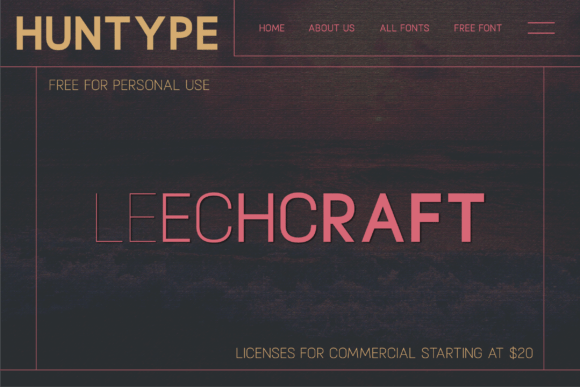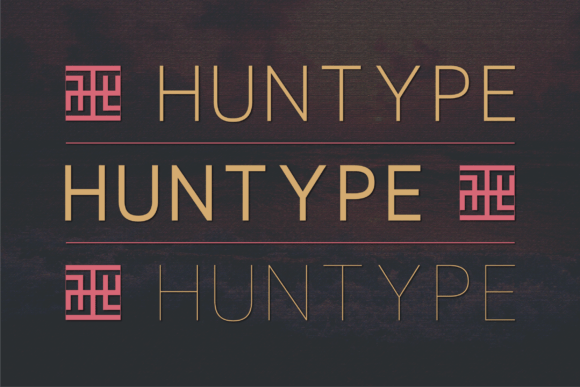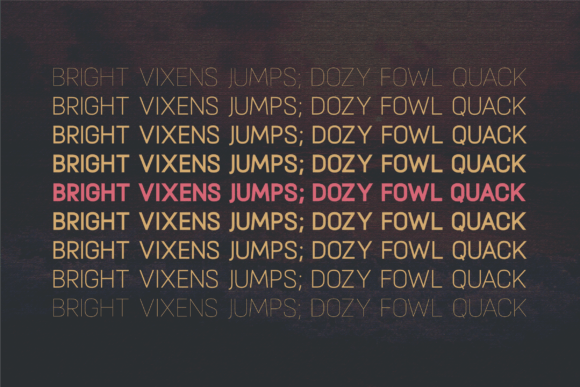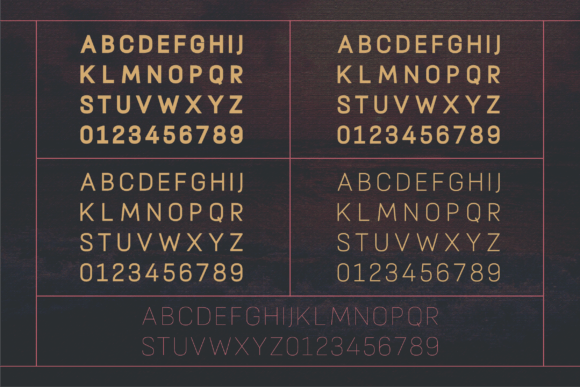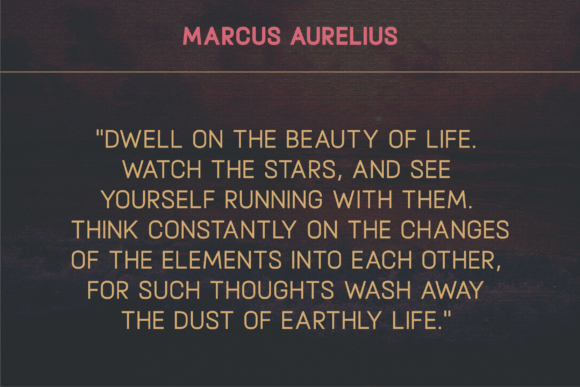
Introduction to Leechcraft Font
Imagine you’re in the midst of a creative project, pouring your heart and soul into every detail. The perfect font can make all the difference, elevating your design from good to great. That’s where Leechcraft Font comes in – a modern and versatile font family that’s about to become your new go-to design resource.
With its blend of clean geometric forms and subtle sophistication, Leechcraft Font is the perfect addition to any high-quality design. Whether you’re working on a free download or a paid project, this font family has got you covered. From commanding headlines to refined designs, Leechcraft Font offers five unique styles to suit every creative need.
From designers to artists, anyone working on a creative project can appreciate the value of a well-designed font. Leechcraft Font’s adaptable style and transparent background make it an ideal choice for designers looking for a high-quality design resource that won’t let them down.
Key Features of Leechcraft Font
- High-quality design resource ideal for creative projects, including posters, flyers, and brochures.
- Features a unique, futuristic aesthetic with a transparent background, allowing for easy layering and customization.
- Includes a range of glyphs and characters, making it suitable for a wide range of creative projects.
- Designed at a high resolution (300 DPI) to ensure crisp, clear typography.
Honest Review: Leechcraft Font
I recently had the chance to work with the Leechcraft Font, and I must say it’s a fantastic addition to any designer’s arsenal. This high-quality design resource is perfect for creative projects that require a unique and eye-catching touch.
What works well: ✨ The font’s bold and edgy design makes it ideal for headings and titles. It’s also available for free download, which is a huge bonus. The transparent background is a nice touch, allowing for seamless integration with various design elements.
Some limitations: ⚠️ While the font is great for headings, it may not be the best choice for body text. The bold design can make it difficult to read in large quantities. Additionally, the font may not be suitable for all types of projects, such as children’s books or formal reports.
Overall impression: I was impressed with the Leechcraft Font’s versatility and high-quality design. It’s a great resource for designers looking to add a unique touch to their creative projects. With a little creativity, this font can be used in a wide range of applications.
- Perfect for headings and titles
- May not be suitable for body text
- May not be suitable for all types of projects
How to Use Leechcraft Font
The Leechcraft Font is a high-quality design resource perfect for any creative project. With its unique style and transparent background, it’s ideal for adding a touch of elegance to your designs.
Tips for Getting the Most Out of Leechcraft Font
Use the Leechcraft Font in combination with other design elements to create a unique and eye-catching design. Experiment with different font sizes, colors, and arrangements to find the perfect look for your project.
The Leechcraft Font is perfect for:
- Magazine and newspaper headlines
- Graphic design and branding projects